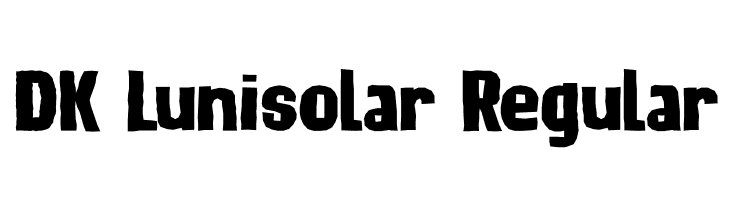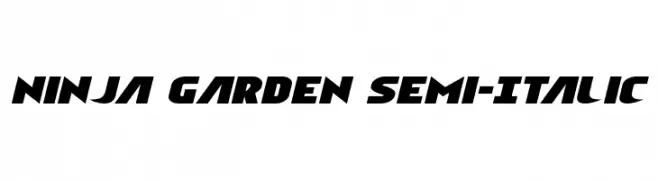
A bold, cursive font with elegant curves and decorative flourishes.
A bold, graffiti-inspired font with dynamic, flowing lines and an urban aesthetic.
A bold, hand-drawn font with a rugged, textured style.
A bold, geometric font with a futuristic and tech-inspired design.
A playful, panda-themed decorative font with whimsical illustrations.
A futuristic, geometric font with blocky, angular letterforms.
A bold, expanded, and italic font with a modern, dynamic style.
A classic blackletter font with sharp, angular strokes and high contrast.
A whimsical and irregular hand-drawn font with a playful and artistic style.
An ornate and decorative font with intricate, medieval-style initials.